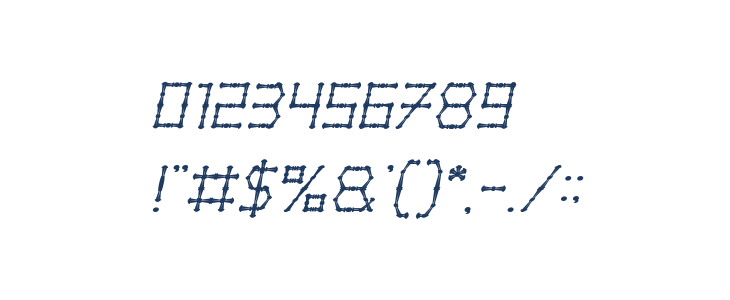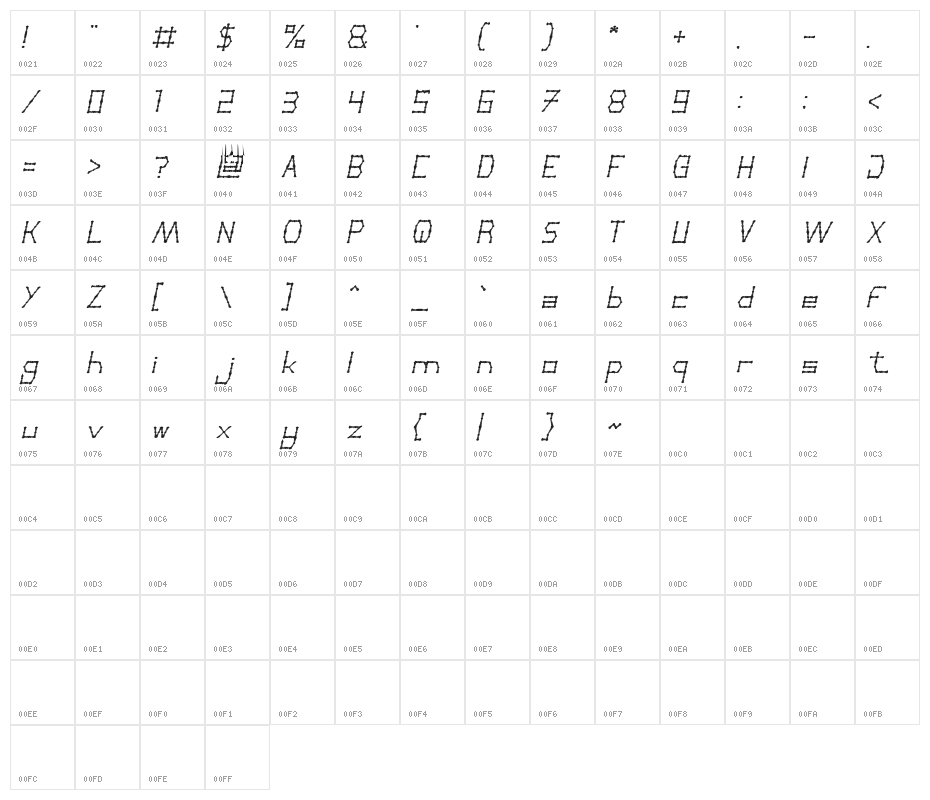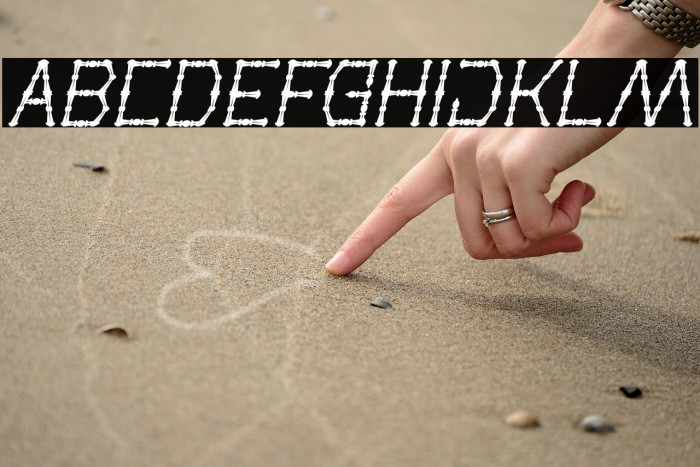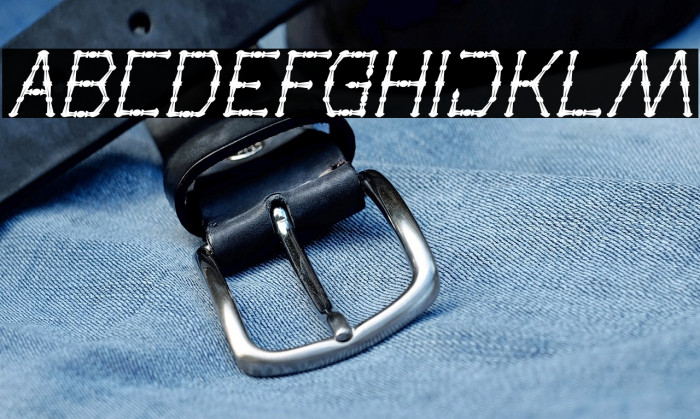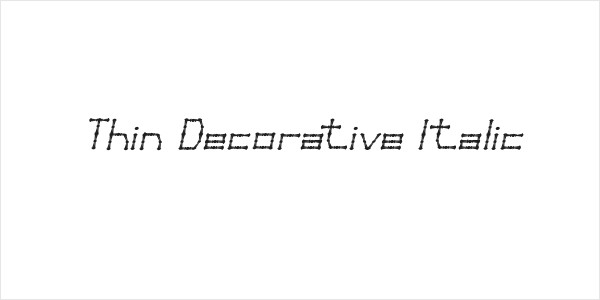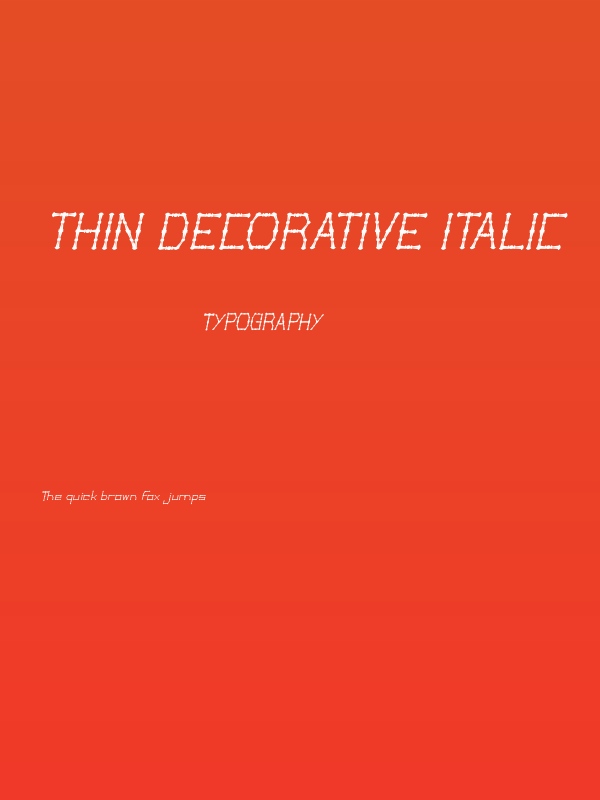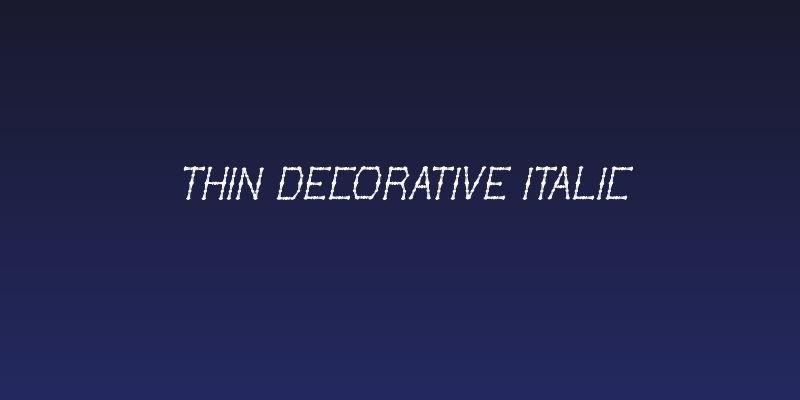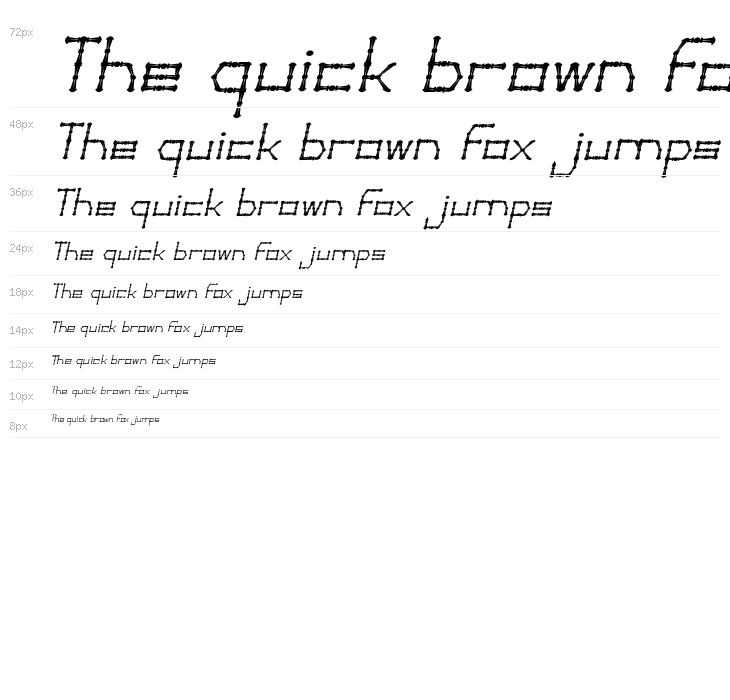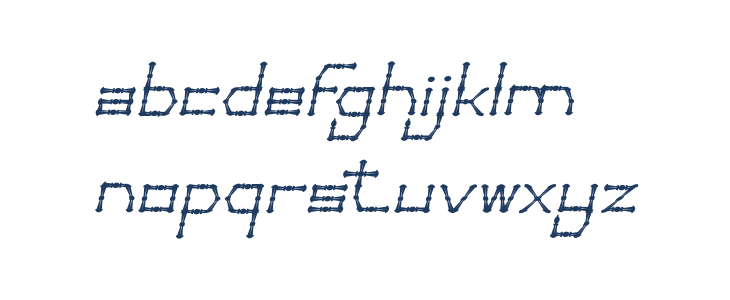
Thin Decorative Italic Font
Thin Decorative Italic Description
This font features a unique decorative style with a thin, italicized form. Each character is composed of intricate, interconnected segments that create a visually striking appearance. The uppercase and lowercase letters maintain a consistent design, with a slight slant that enhances the italic effect. Numbers and special characters follow the same decorative pattern, ensuring uniformity across all glyphs. The font's thin lines and detailed structure make it ideal for creative projects where a distinctive and artistic touch is desired.
| Proposed Projects | Ideal for artistic designs, creative branding, unique invitations, and decorative posters. |